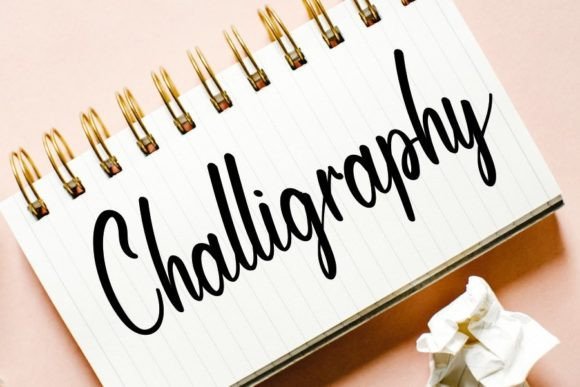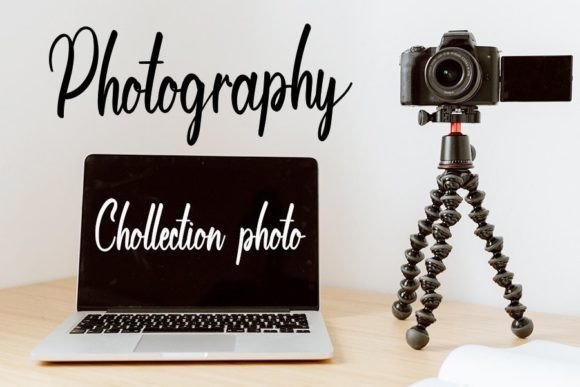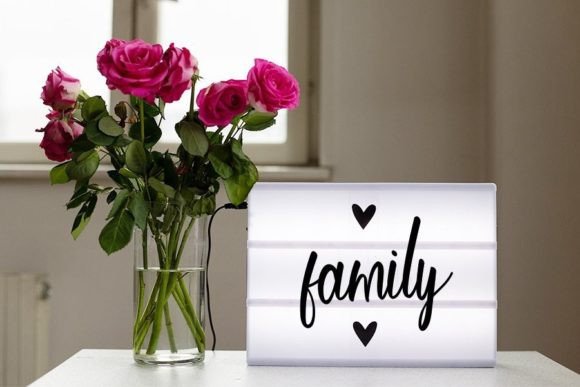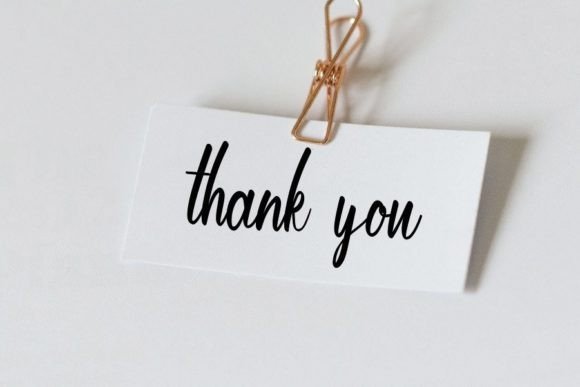
The Art of Handwritten Perfection: Introducing Autography Font
Have you ever stared at a blank page, pencil in hand, waiting for inspiration to strike? It’s that moment when creativity flows, and the possibilities seem endless. As designers, we’re always on the lookout for the perfect tool to bring our ideas to life. That’s where Autography Font comes in – a beautiful, elegant handwritten font that adds a personal touch to any project.
This stunning font is designed to make a statement, with its unique and timeless style that’s sure to captivate your audience. Whether you’re working on a branding project, a wedding invitation, or a social media campaign, Autography Font is the perfect choice to elevate your designs and leave a lasting impression. Its versatility and beauty make it a valuable addition to any designer’s toolkit, and we can’t wait to share it with you.
Autography Font Key Features
- Unique Characteristics: Features a unique, handwritten style with subtle flourishes and organic feel
Autography Font Review
As a designer, I’ve had the chance to work with a wide variety of fonts, and I’d say Autography is a solid addition to any designer’s toolkit. ✨ One of the things that really stands out about Autography is its unique, handwritten feel. The font is incredibly versatile and works well in a range of contexts, from body copy to headlines.
- ✨ High level of expressiveness: Autography is great at conveying emotion and personality through its varied line weights and subtle flourishes.
- ✨ Wide range of languages supported: Autography is available in a range of languages, making it a great choice for global brands and organizations.
- ✨ Good for digital use: Autography looks great on screen, making it a solid choice for digital projects.
Of course, no font is perfect, and Autography has a few limitations. ⚠️ One of the things I’ve noticed is that Autography can be a bit tricky to read at smaller font sizes. The font is also quite ornate, which can make it difficult to use in situations where a more minimalist approach is required.
Overall, I think Autography is a great addition to any designer’s toolkit. While it may not be the best choice for every project, it’s definitely worth considering for projects that require a touch of personality and whimsy. With a bit of care and attention to typography, Autography can really shine.
Tips: Use Autography Font to create a personal and handwritten touch in your designs. Experiment with different font sizes and colors to achieve a unique look.
Tips: Use Autography Font to create a custom, handwritten feel in your designs. Experiment with layer blending modes and opacity to achieve a unique look.
Tips: Use Autography Font to add a personal touch to your presentations and documents. Experiment with different font sizes and colors to emphasize important information.
Autography Font is perfect for:
- Creative portfolios and resumes
- Invitations and event branding
- Personalized gifts and stationery
Remember to experiment with different font styles and sizes to achieve a unique look that reflects your personal brand.